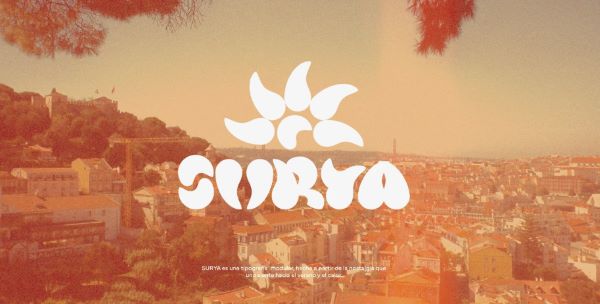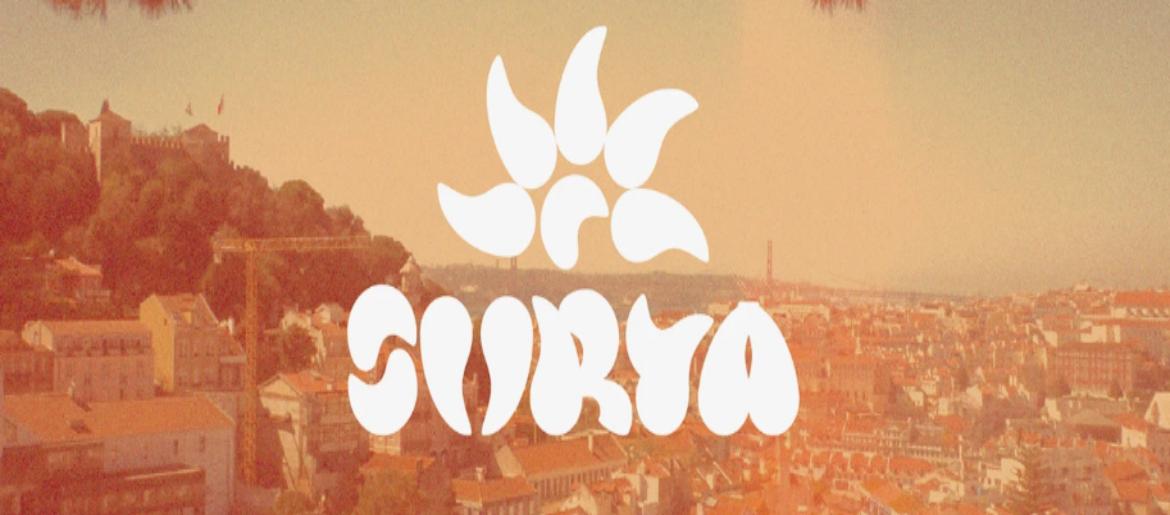
Surya Font
Surya by Nil Ribera is a free display typeface with a warm, hand-crafted sensibility and a visual character that feels distinctly its own. Named after the Sanskrit word for sun, it carries an expressive energy in its letterforms — drawn with the kind of care and personal investment that comes through clearly at display sizes. Whether used on editorial covers, poster headlines, branding, or social media compositions, Surya commands attention without demanding it, projecting confidence through its individual character rather than sheer weight. A personal-use version is available for free download.